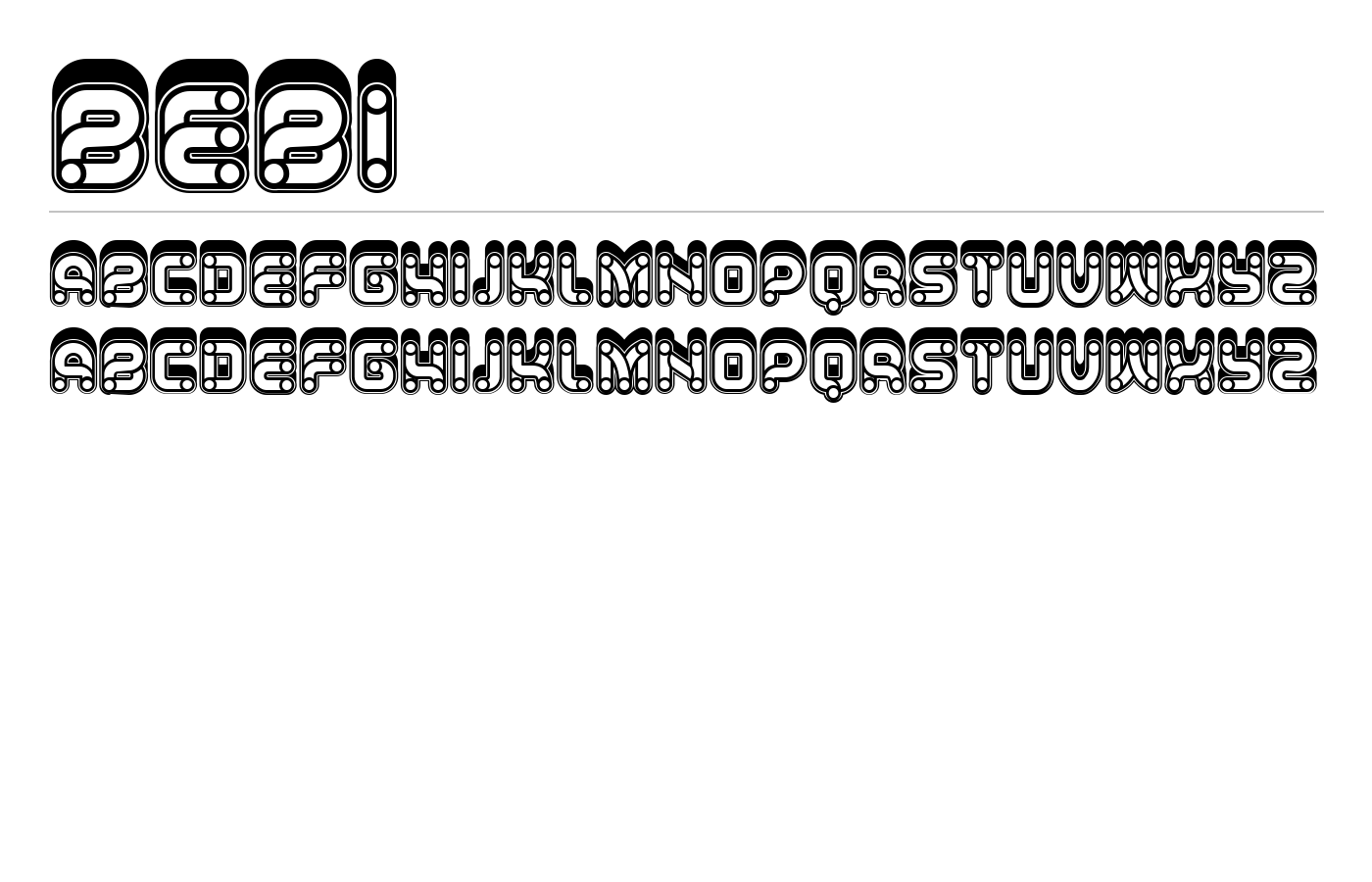
Bebi Font is a bold, playful sans serif typeface with a strong geometric and retro-futuristic vibe. Its rounded edges and layered outline design create an eye-catching, dynamic look that works well for headlines, logos, and creative branding where a fun and unique statement is desired. This font is perfect for projects that want to convey energy, modernity, and a distinctive, artistic flair.
Bebi Font
About Bebi Font
| Font family | Bebi Font |